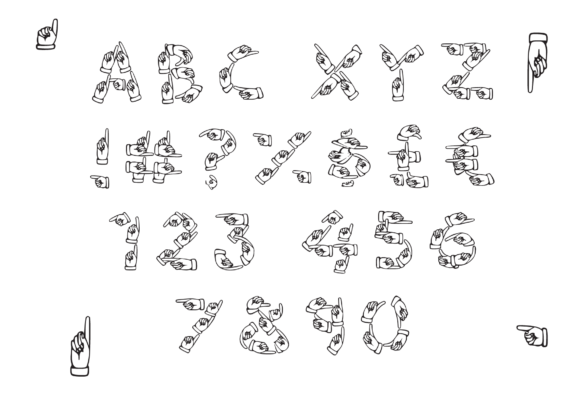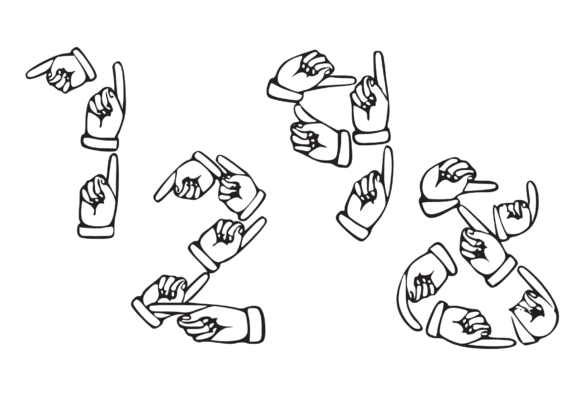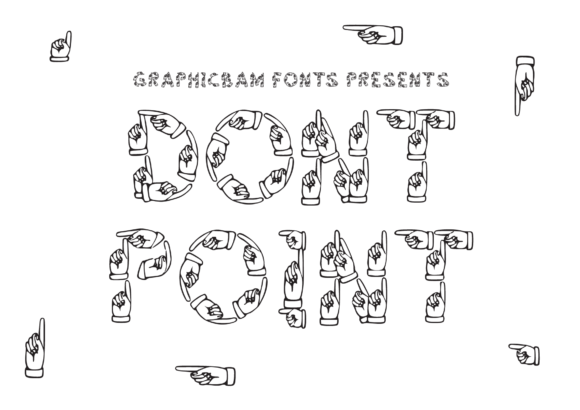
Introducing Don’t Point Font: Add a Playful Touch to Your Designs
Are you tired of using the same old fonts in your designs? Look no further! Don’t Point Font is a fun and incredibly unique decorative font that is sure to add a playful touch to your creations. This font features characters created with vintage pointing hands, making it a standout addition to any design project.
What is Don’t Point Font?
Don’t Point is a decorative font that is unlike any other. Instead of traditional letters and numbers, this font features pointing hands that are sure to grab attention. The font is perfect for designers and crafters who want to add a touch of whimsy and personality to their work.
Key Features of Don’t Point Font
- Unique and playful design: The pointing hands in this font are sure to add a fun and playful touch to any design.
- Vintage-inspired: The font features vintage-style pointing hands, giving it a nostalgic feel.
- Versatile: This font can be used in a variety of design projects, from digital graphics to print materials.
- Create eye-catching headings: Use Don’t Point Font to create bold and eye-catching headings for your designs.
- Add a playful touch to invitations: Add a playful touch to your invitations and party materials with this unique font.
- Make your social media graphics stand out: Use Don’t Point Font to create social media graphics that are sure to grab attention.
- Adds personality to your designs: This font is sure to add a touch of personality and whimsy to your designs.
- Helps you stand out: The unique design of Don’t Point Font will help your designs stand out from the crowd.
- Easy to read: Despite its playful design, Don’t Point Font is easy to read and understand.
- Use it sparingly: Because of its bold design, it’s best to use Don’t Point Font sparingly to avoid overwhelming your design.
- Experiment with different colors: Don’t be afraid to experiment with different colors and textures to add depth and interest to your design.
- Pair it with other fonts: Don’t Point Font pairs well with other fonts, so feel free to get creative and try out different combinations.
Don’t Point Font is a fun and unique decorative font that is sure to add a playful touch to your designs. With its vintage-inspired pointing hands and easy-to-use design, this font is perfect for designers and crafters of all levels. Whether you’re creating digital graphics, print materials, or social media graphics, Don’t Point Font is a great choice. So why not give it a try and see how it can add a touch of personality to your designs?